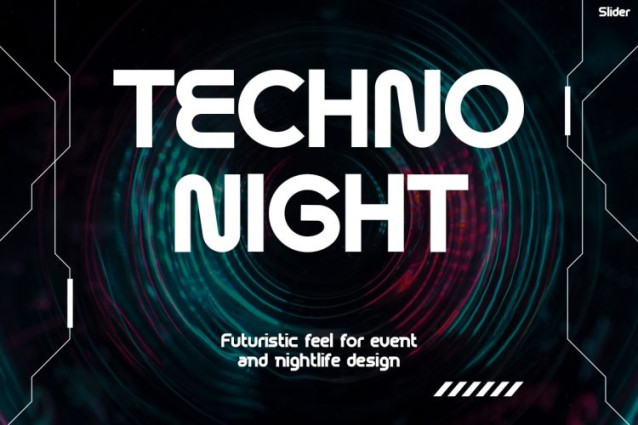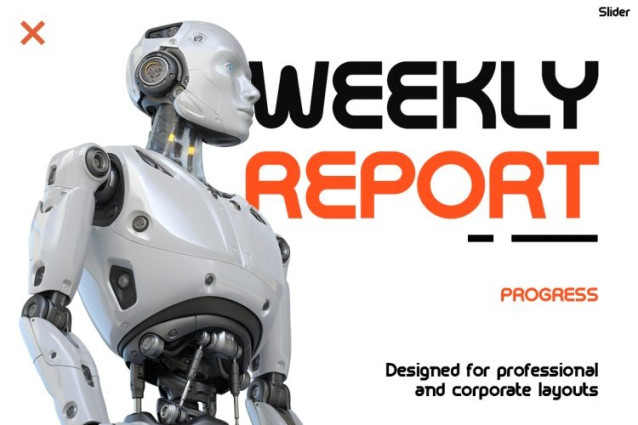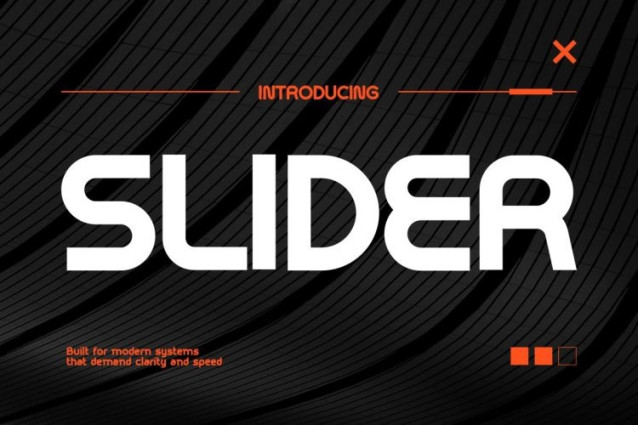
Slider Font is a sleek and futuristic typeface designed to bring a high-tech edge to modern visuals. At first glance, its geometric shapes and sharp angles create a strong digital and sci-fi aesthetic. Moreover, the clean lines and structured forms give it a precise, modern feel that looks both professional and innovative. Because of its bold and minimal design, the font stands out effortlessly while maintaining excellent readability. In addition, its techno-inspired style makes every word feel dynamic and forward-thinking. As a result, SLIDER is perfect for designs that aim to look modern, powerful, and cutting-edge.
Modern Font SLIDER is a contemporary display font crafted for tech-driven and futuristic projects. Not only does it feature clean and bold letterforms, but it also works perfectly with dark themes, neon accents, and digital-style layouts. Furthermore, the consistent spacing ensures clarity across different formats. Therefore, whether you are designing for digital interfaces, branding, or presentations, SLIDER adds a sharp and modern touch. Ultimately, it transforms simple text into a strong visual statement that feels innovative and impactful.